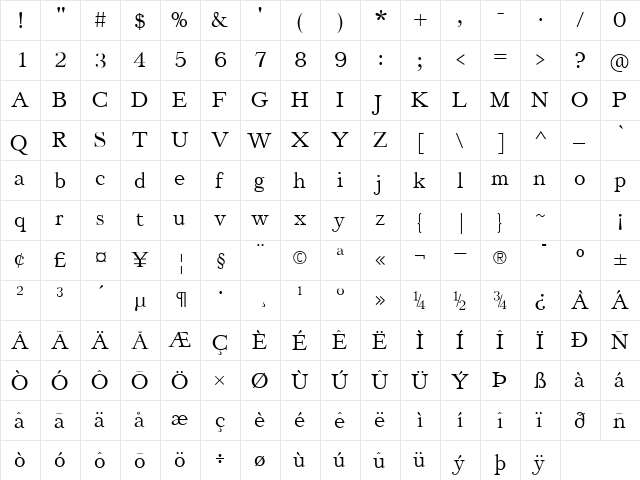
JasperSqueeze Regular
Design Context for JasperSqueeze Typeface
JasperSqueeze is a composed and adaptable typeface that performs quietly and consistently across a wide range of design contexts.
Pro Tip: Use JasperSqueeze in both headline and body roles to test its range before committing to a single application.